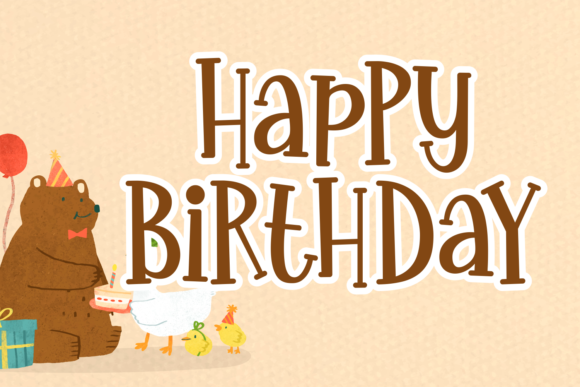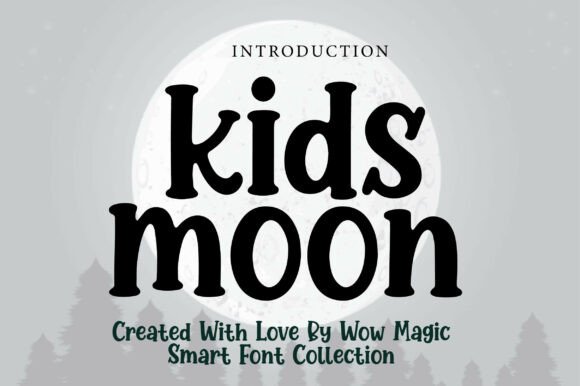
14 charming and cute serif fonts to download
As a designer, I’m constantly hunting for typefaces that break away from the “stiff” traditional serif look in favor of something more expressive and warm. In this post, I’ve curated a list of 14 charming and cute serif fonts that I personally find inspiring. From sketchy, hand-drawn vibes to chic, retro-inspired curves, these fonts are perfect for adding a unique, “out of this world” touch to your next creative endeavor. Let’s dive into some of my favorite finds!
Cute Bianca Serif Font
Sometimes a project needs more than just structure; it needs a soul and a bit of a smile, which is exactly why I’ve been keeping this delightful Serif Font in my rotation. Cute Bianca is a handwritten typeface that manages to pull off a very tricky feat: it’s incredibly adorable without losing that touch of sophistication. As a designer, I find it to be a lifesaver for branding and stationery projects where I want the end result to feel personal, warm, and approachable.
In my own work, I’ve seen this Serif Font shine on everything from custom T-shirt designs to memorable social media quotes. It has this unique way of making a brand image feel “charming” rather than just “pretty.” If you’re looking for a go-to solution for logos or apparel that require a blend of cuteness and high-end design, Cute Bianca is the kind of typeface that promises to make your creative work truly stand out as something special.
Dainty Cute Serif Font
If you’re looking to add a splash of joy to your next project, this playful Serif Font alternative is a fantastic choice for any designer’s toolkit. Dainty Cute brings a cheerful and creative energy that immediately lightens the mood of a composition. In my experience, finding a typeface that balances a professional concept with such a unique, “playful” vibe is rare, making it perfect for events, birthdays, or ceremonies where you want the typography to feel like part of the celebration.
I’ve found this Serif Font style to be incredibly versatile across a variety of mediums, from vibrant T-shirt designs and packaging products to clean website headers. It has a way of making branding and logotypes feel approachable yet intentional. Whether I’m layout out a magazine headline or designing a brochure, the “Dainty Cute” aesthetic provides that spirited, one-of-a-kind touch that helps a design truly connect with its audience.
Cute Little Friend Serif Font
I love it when a typeface comes with a deeper meaning, and this particular Serif Font is a beautiful example of design inspired by nature. “Cute Little Friend” is actually drawn from the tenacity and altruism of ants, symbolizing qualities like diligence and resilience in its letterforms. As a designer, I find this backstory incredibly grounding; it serves as a gentle reminder in my daily work that even the smallest elements can inspire greatness and carry a strong message of unwavering work ethic.
In my creative projects, I use this Serif Font when I want to convey a sense of selflessness and warmth without sacrificing visual impact. Its charming, rounded appearance makes it perfect for children’s branding, illustrative posters, or any design that needs a friendly, hardworking soul. It’s more than just an adorable display face—it’s a typeface that brings a unique narrative of strength and community to the page, proving that “small” can still be powerful.
Cute Vampire Serif Font
What I love about using this Serif Font is the realistic feel it brings to the digital canvas. It doesn’t feel stiff or over-engineered; instead, its light strokes add a sense of sincerity to any design. Whether you are crafting educational content or just want to add a bit of “hand-drawn” charm to your latest layout, this font provides that subtle, personal vibe that makes your work feel much more connected to your audience.
Lisa Cute Serif Font
I recently came across this Serif Font, and I have to say, its unique proportions really caught my eye. Lisa Cute is a charmingly tall and adorable typeface that was clearly designed to give any creative project a look that feels almost out of this world. As a designer, I’m always looking for something that breaks the standard mold, and the verticality of these letterforms adds a gorgeous, distinctive flair to a wide variety of design ideas.
In my experience, this Serif Font is a fantastic choice when you want to add a “unique touch” without overcomplicating the layout. I can see it working beautifully for everything from playful web designs to professional business cards that need a bit of personality. It’s essentially a go-to solution for pretty much any project where you want your typography to feel both pretty and completely original.
Cute Bearly Serif Font
I’m always searching for typefaces that can inject a bit of joy into a layout without losing their aesthetic appeal, and this Serif Font is a perfect example of that balance. Cute Bearly is a playful and chic typeface that instantly brightens any canvas it touches. As a designer, I see it as an amazing choice for cartoon-related designs or children’s games where you want the typography to feel as lively as the illustrations.